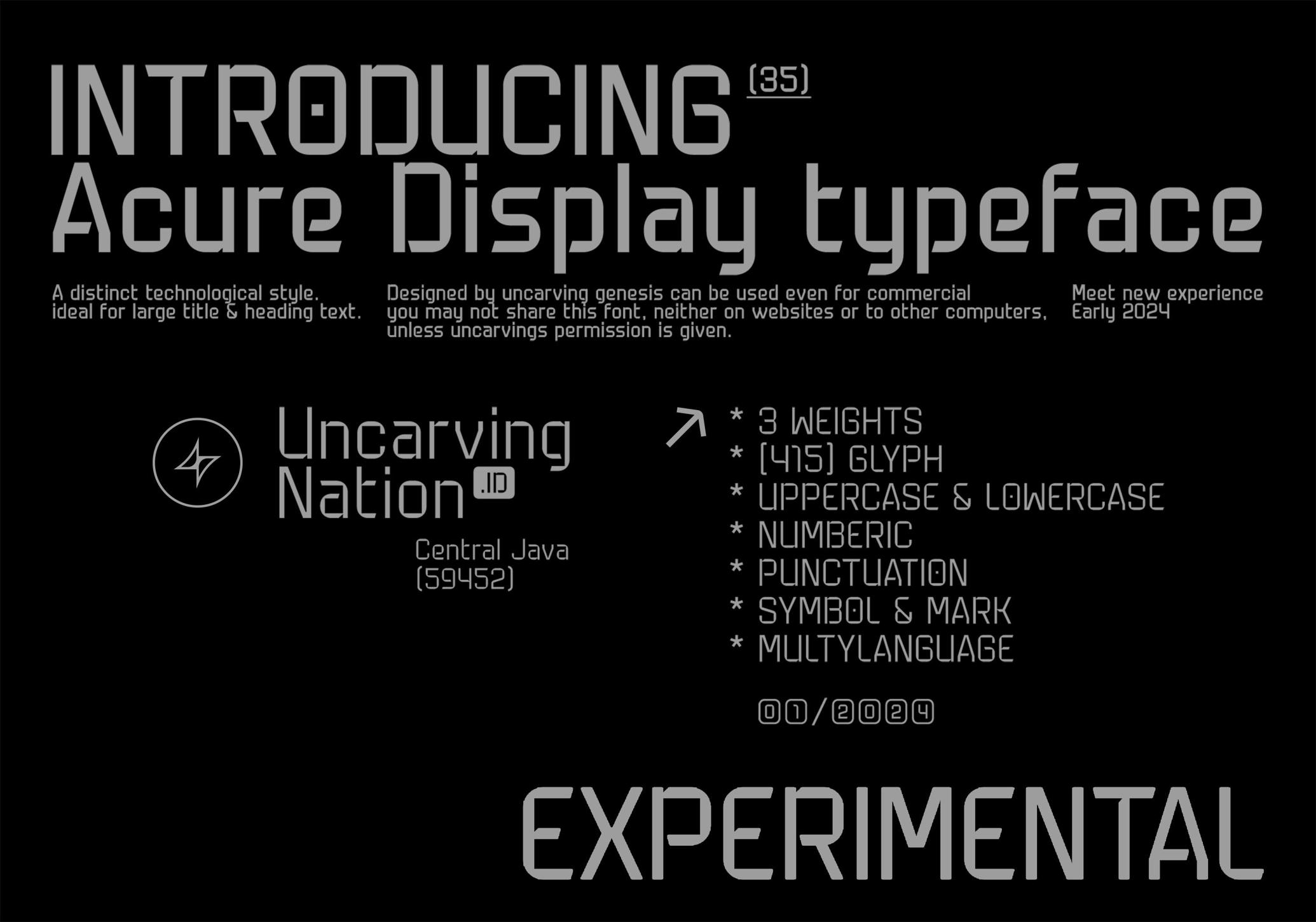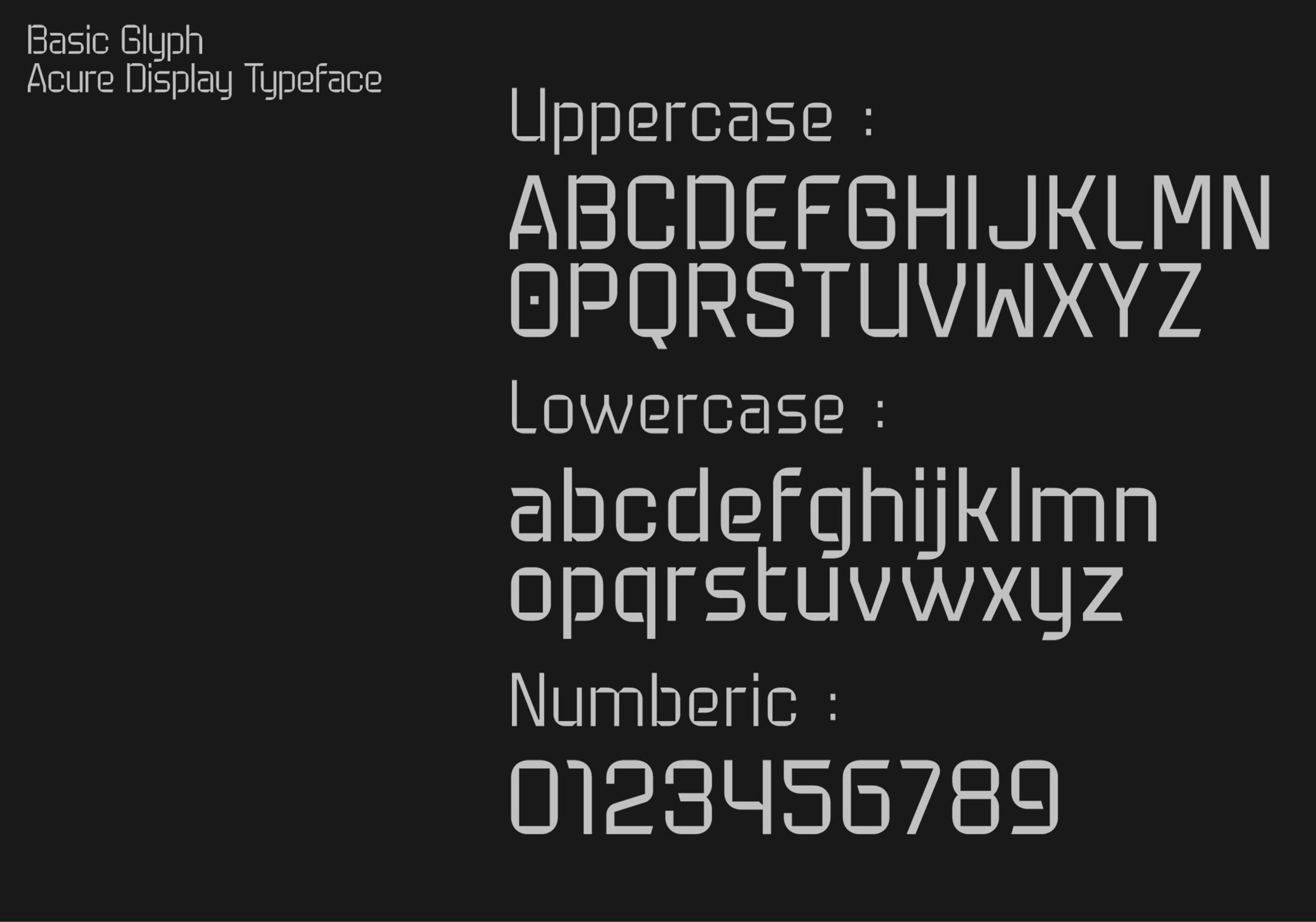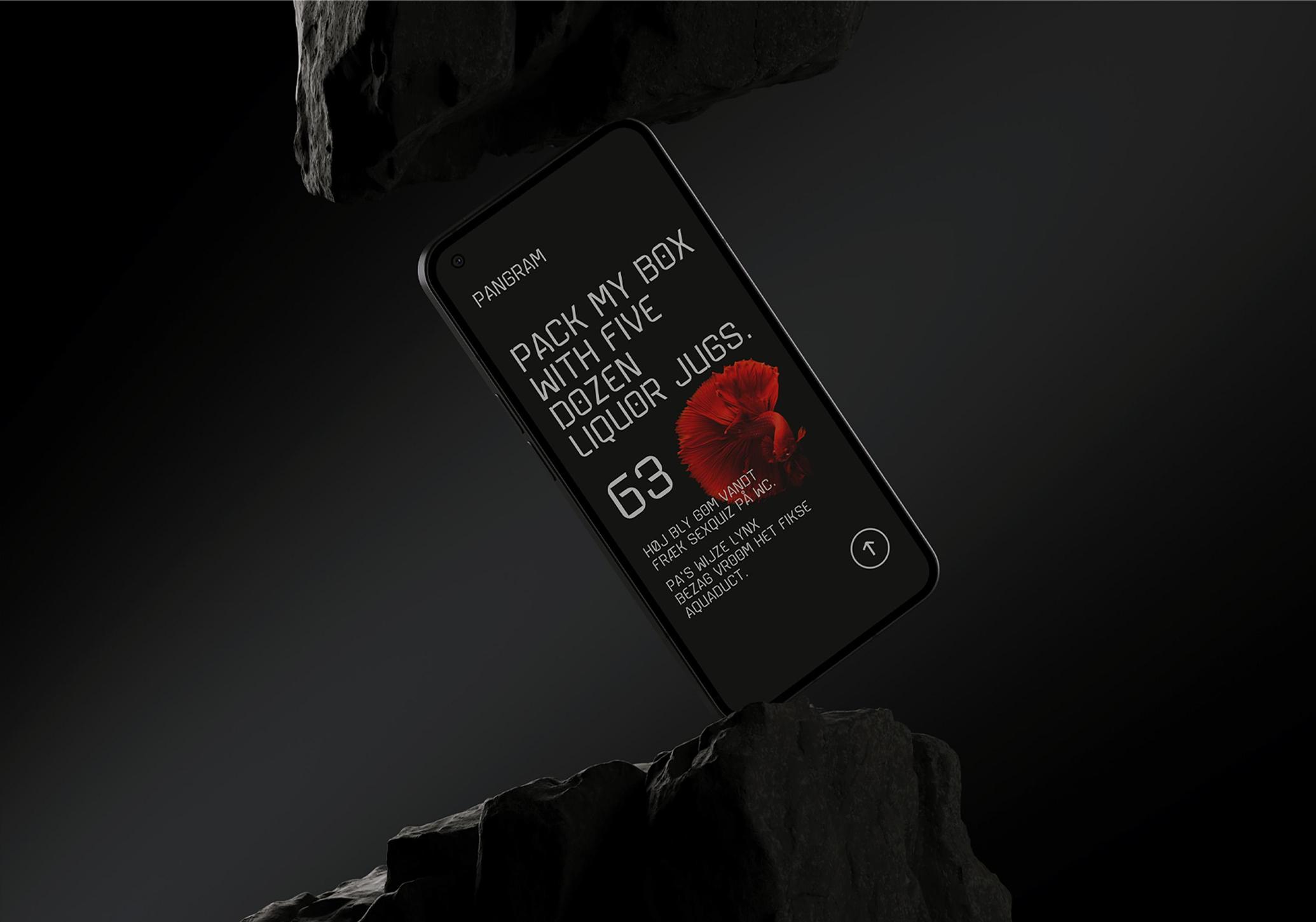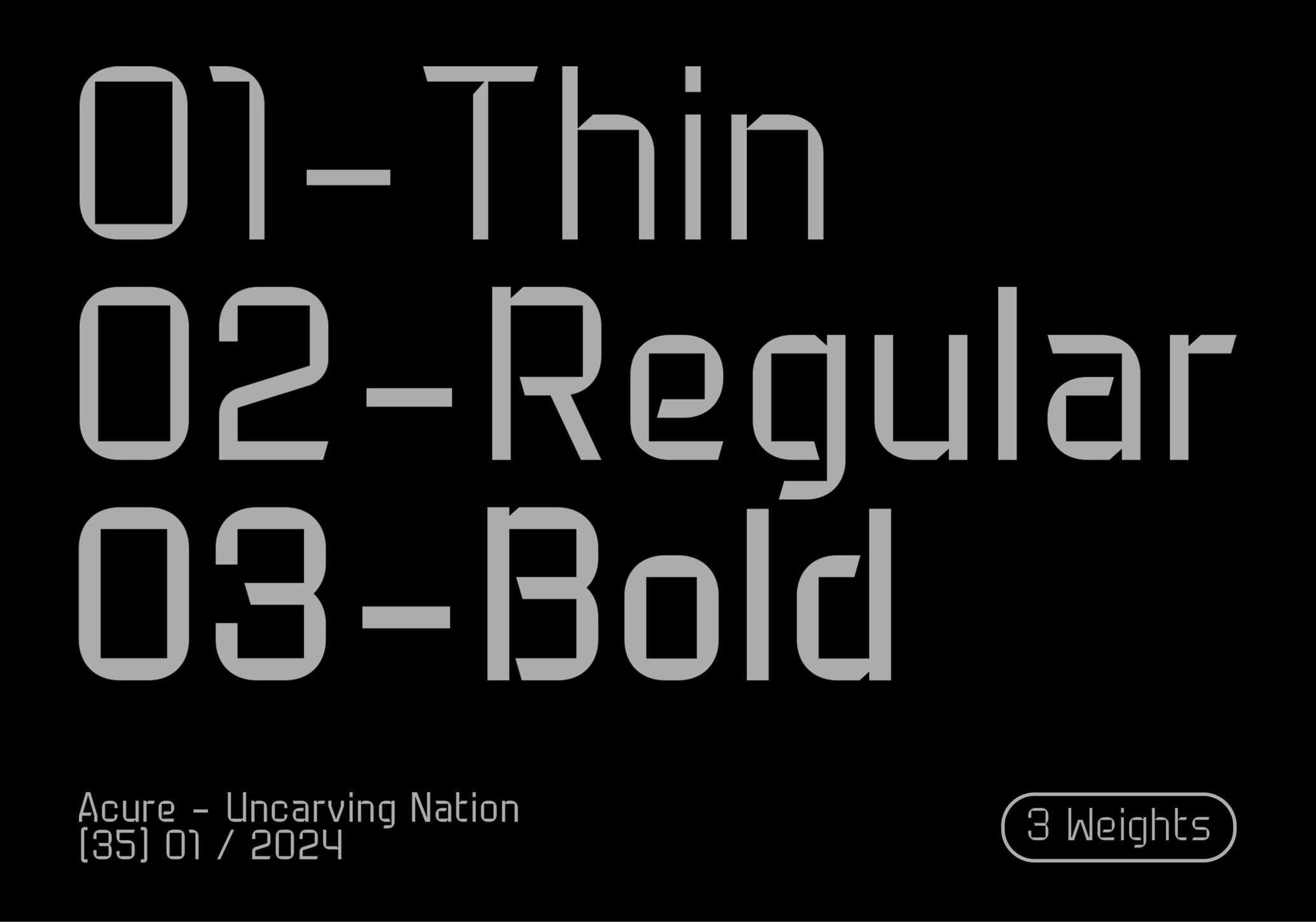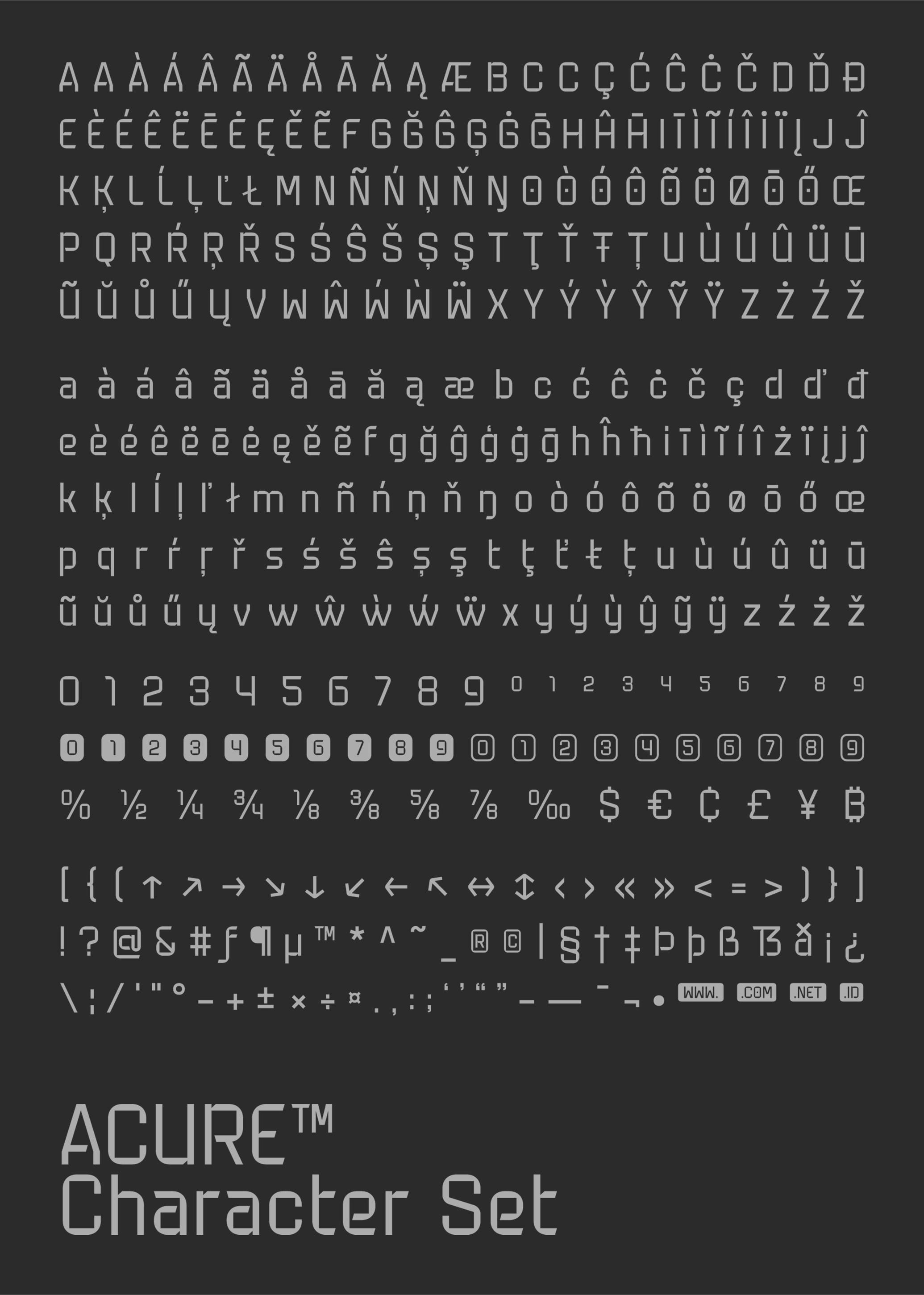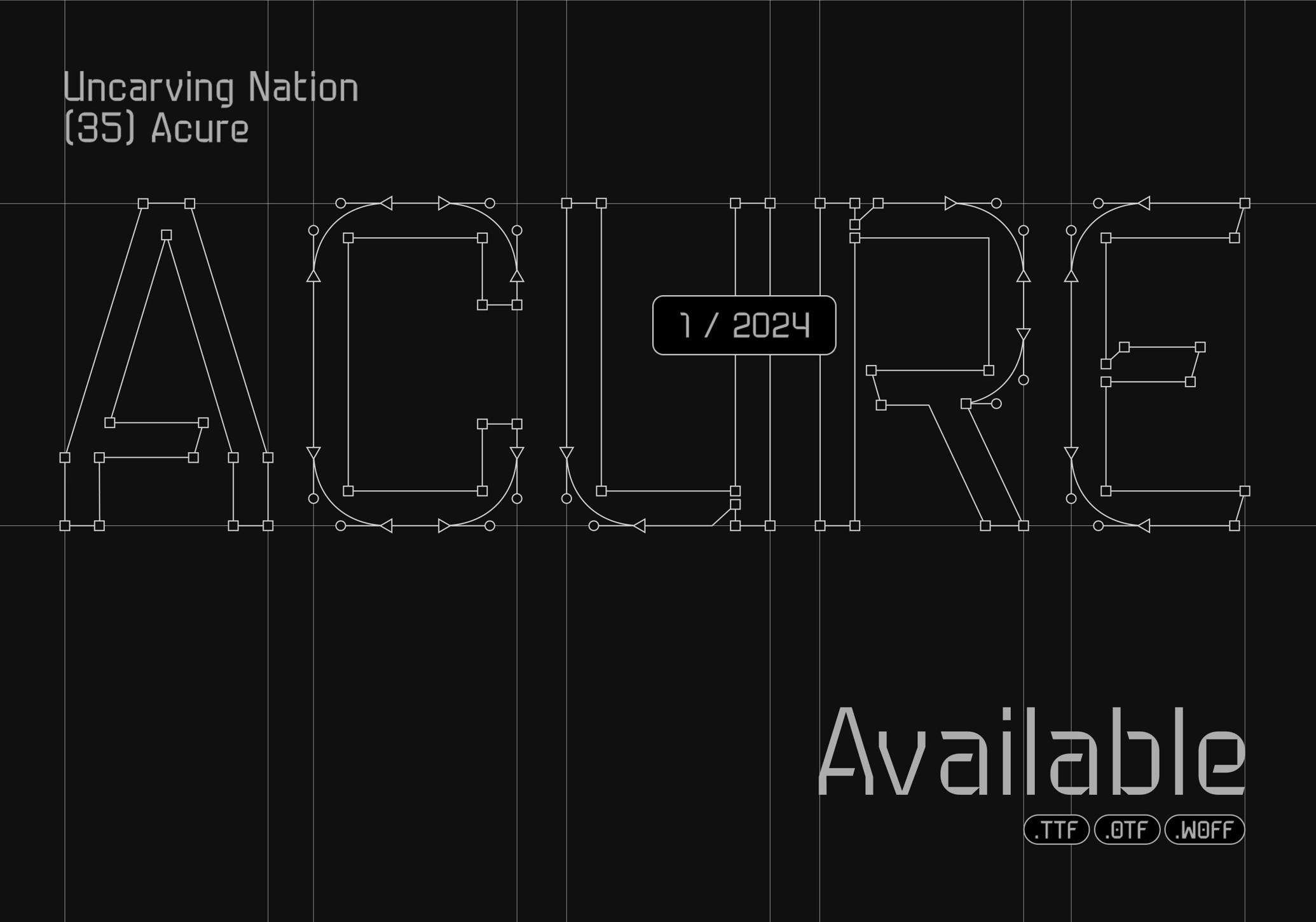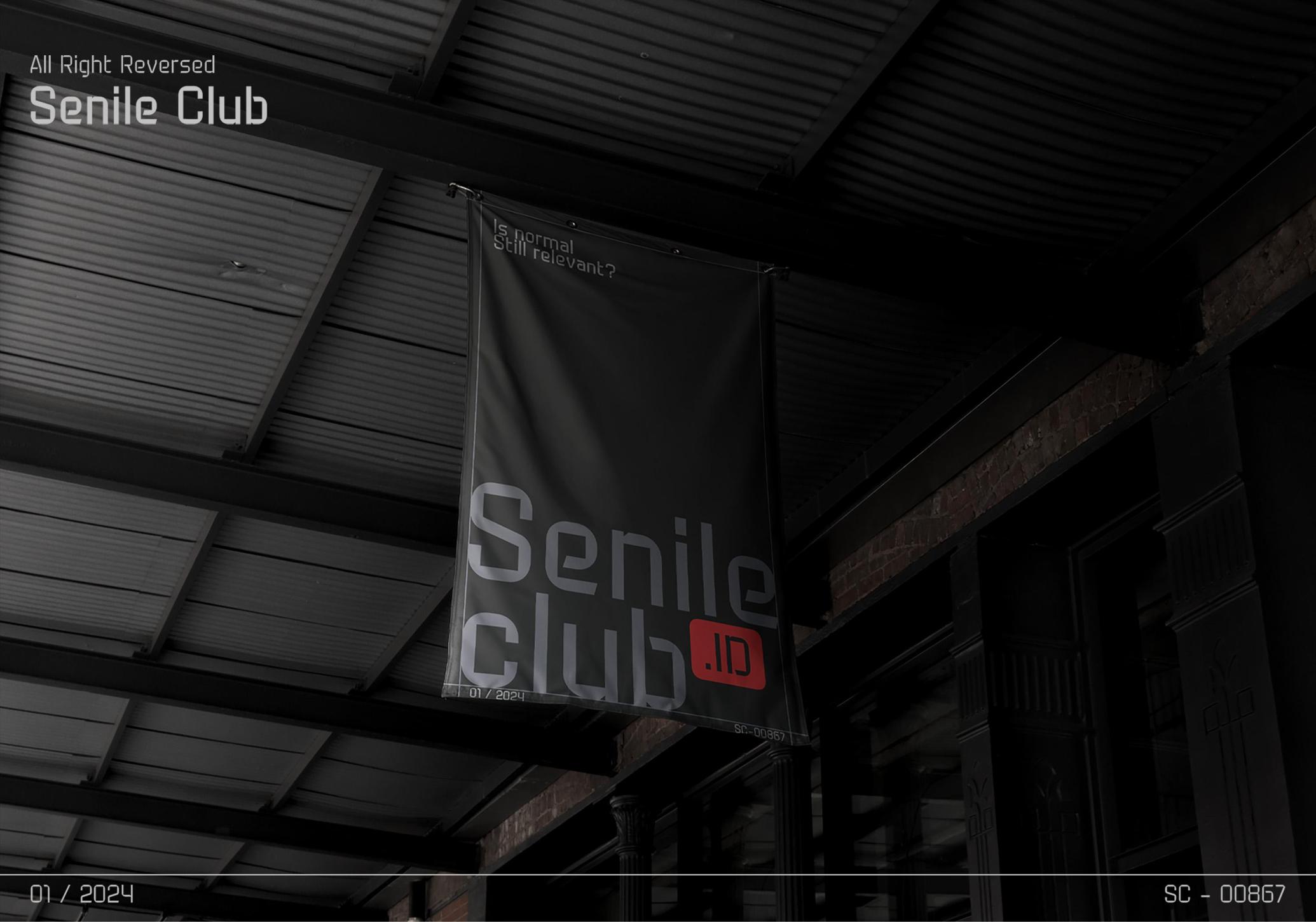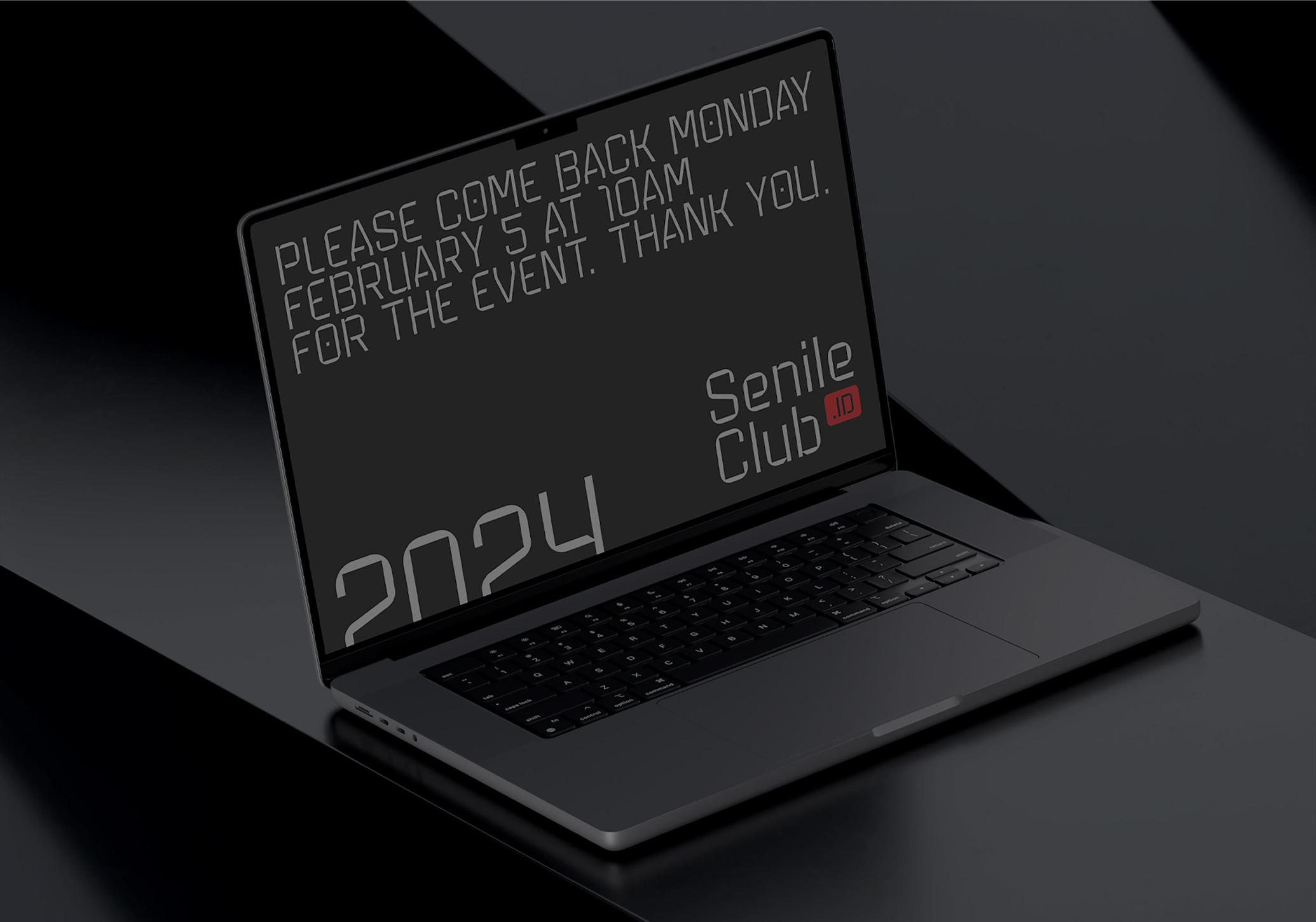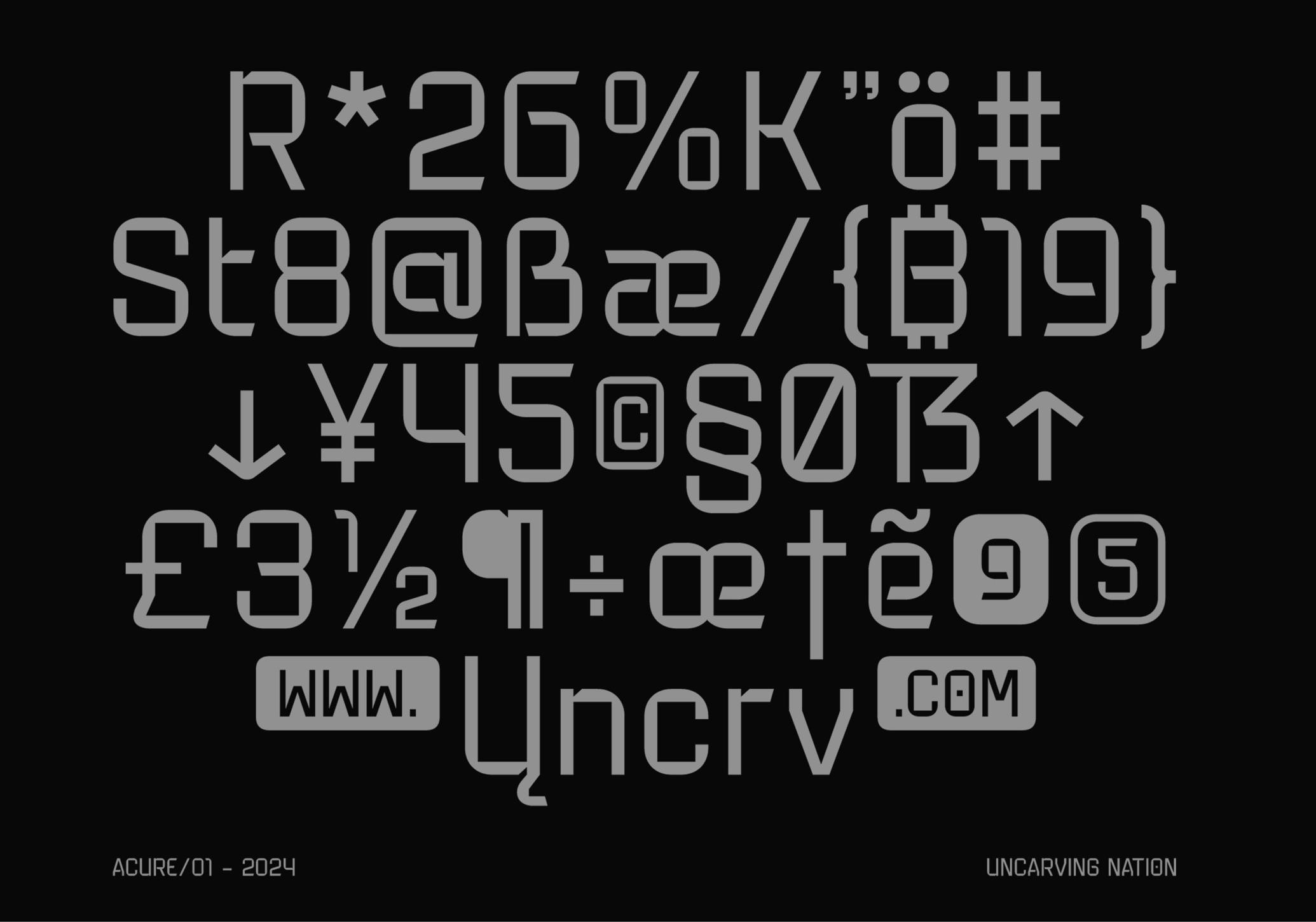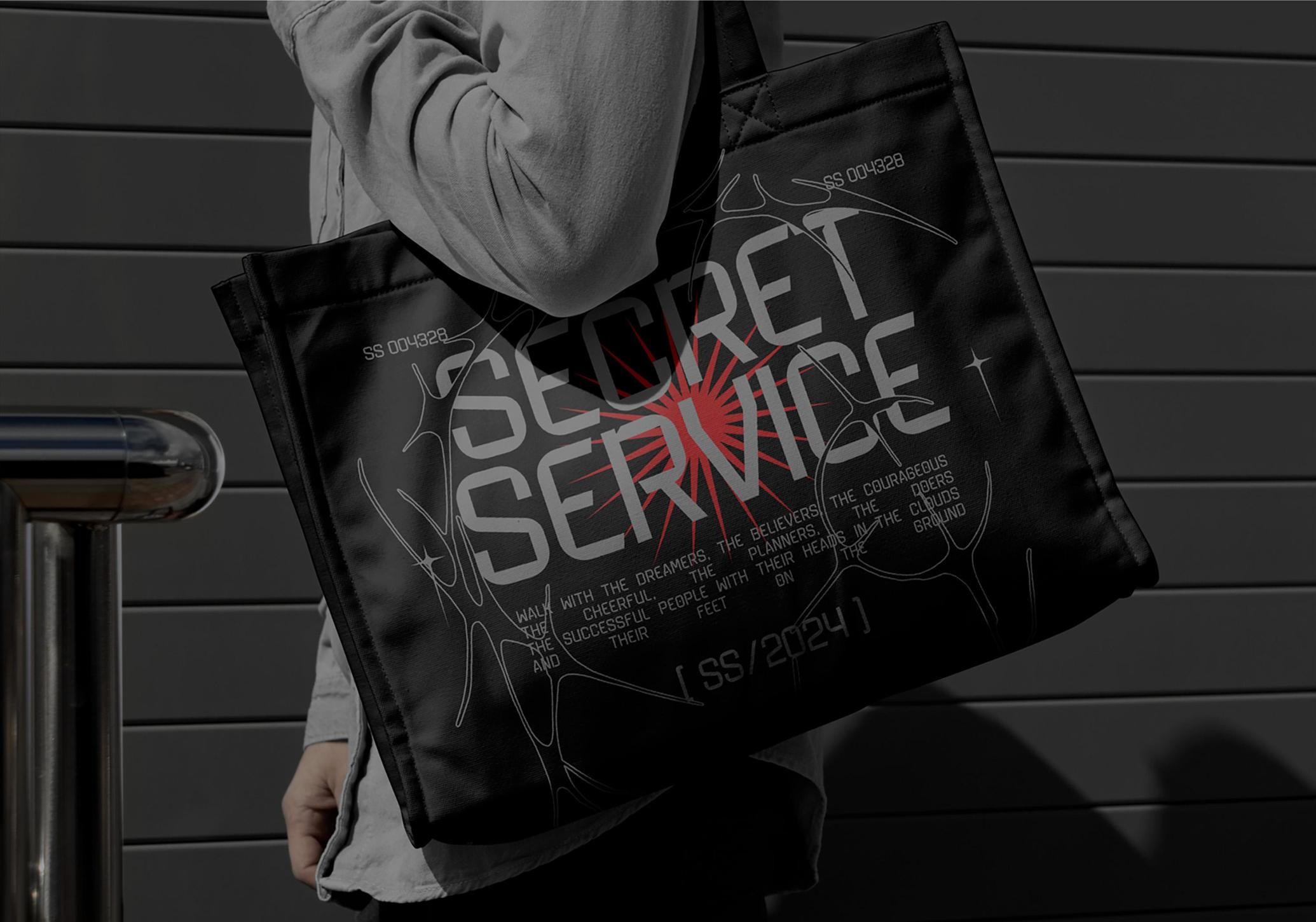
Acure - Display Font
Acure is a square-cut display typeface, where brutalist forms go along with soft, futuristic restraint. Strokes end with a clear mechanical purpose — some squared, some sheared — giving the font a modular, clearly digital rhythm.
The typeface includes 3 styles — Thin, Regular, and Bold — and supports a full Latin character set with 415 glyphs. Uppercase, lowercase, numerals, symbols, punctuation, and multilingual characters are all included. Acure is a solid fit for fashion campaigns, event posters, contemporary branding, video game interfaces, electronic music covers, architectural zines, NFT or crypto visuals, sci-fi headlines, and tech startup decks.